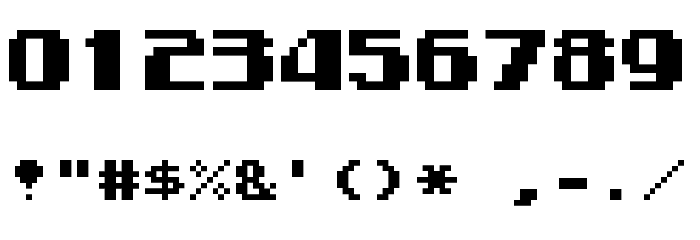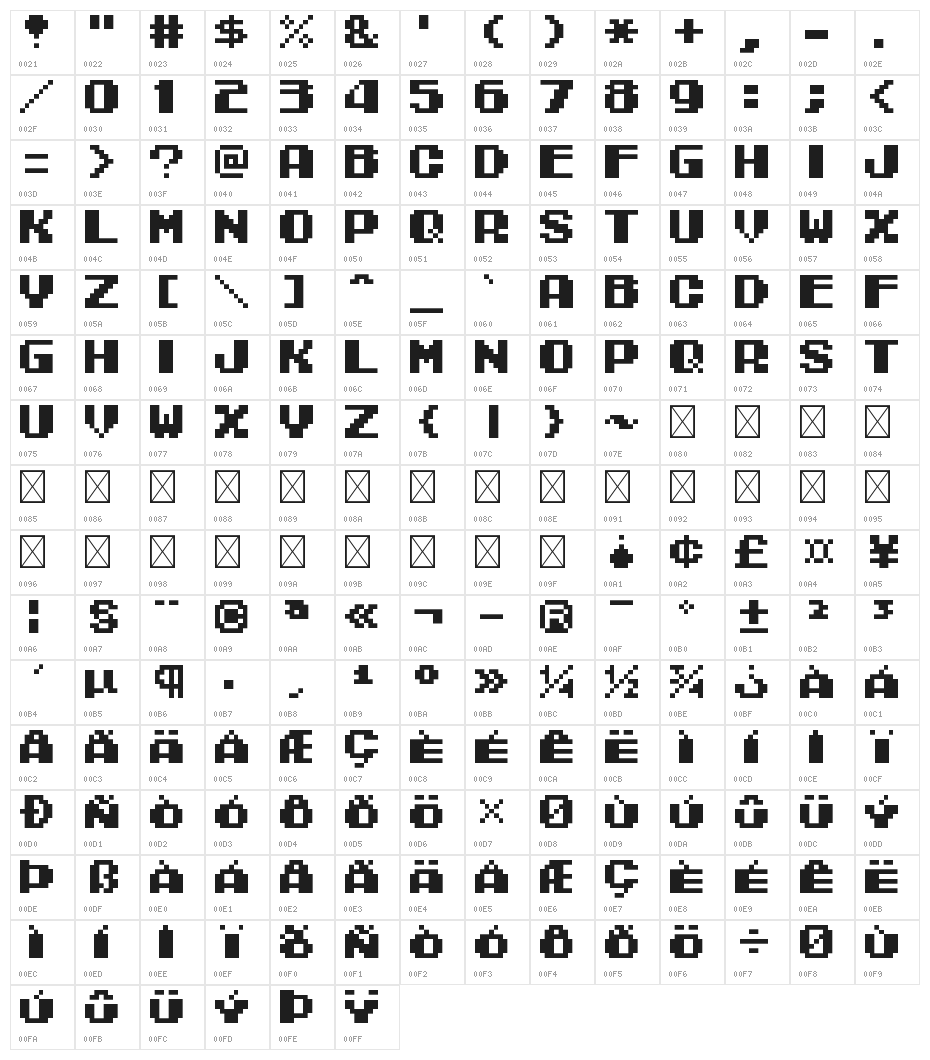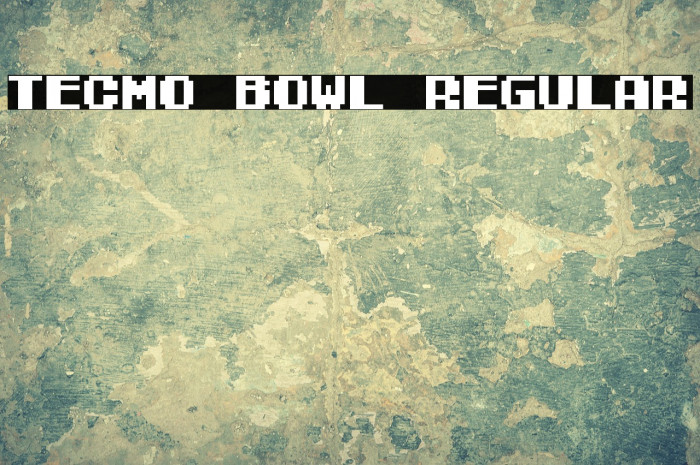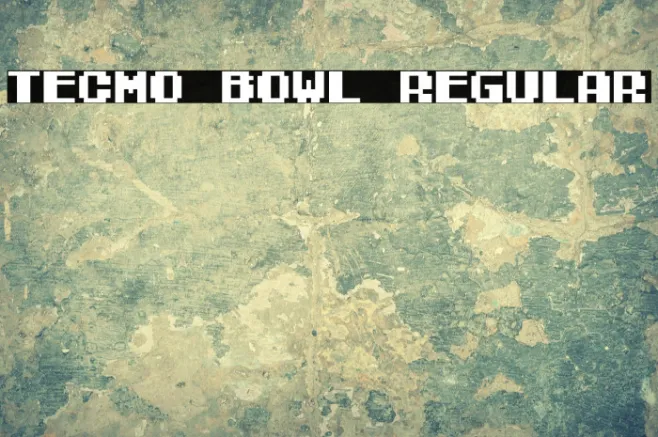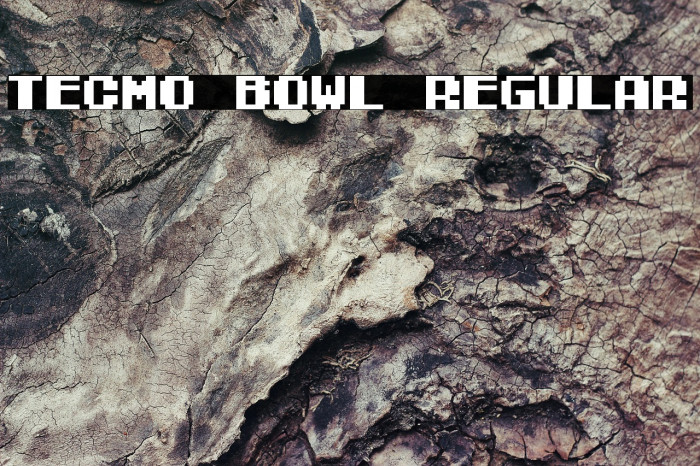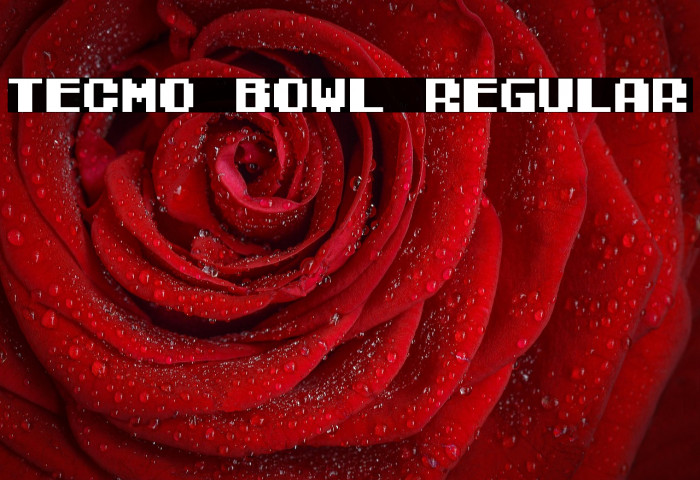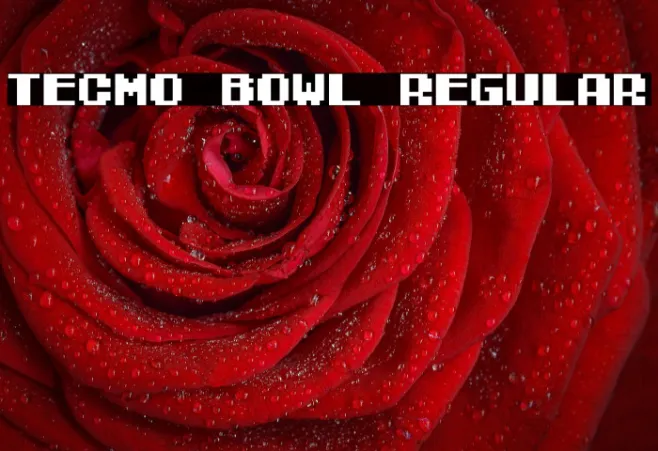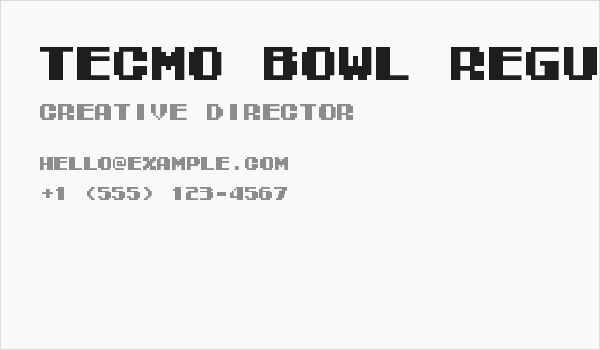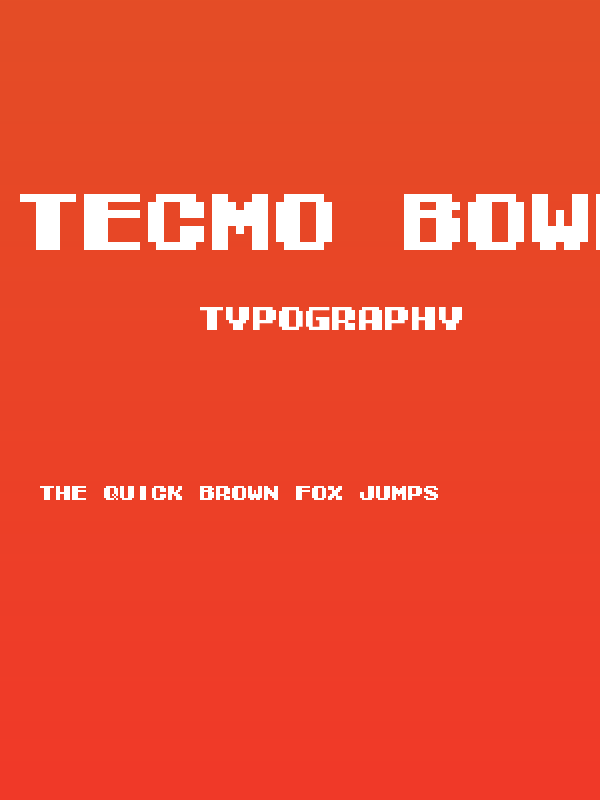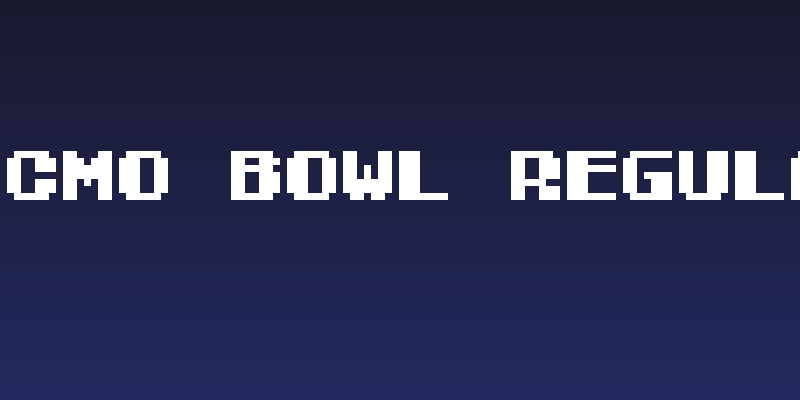
Tecmo Bowl Regular Font
Tecmo Bowl Regular Description
This font features a bold, pixelated style reminiscent of classic video game graphics. The characters are blocky and geometric, with uniform stroke widths that create a cohesive and structured appearance. The uppercase and lowercase letters maintain a consistent height, contributing to a monospaced feel. Numbers and special characters are designed with the same pixelated aesthetic, ensuring a harmonious look across all glyphs. The font's retro vibe makes it ideal for projects that aim to evoke nostalgia or a digital theme.